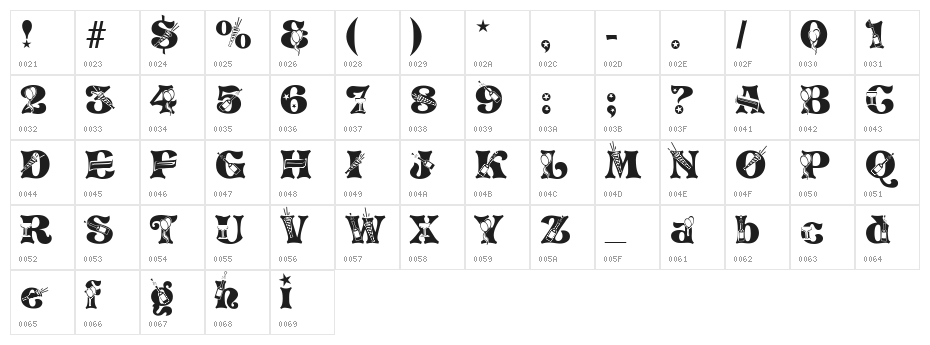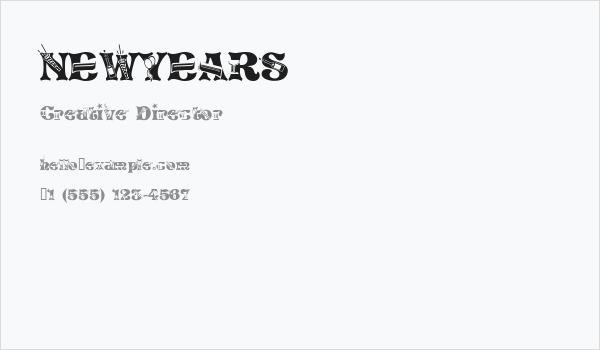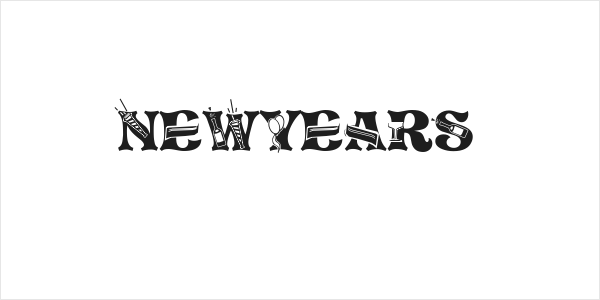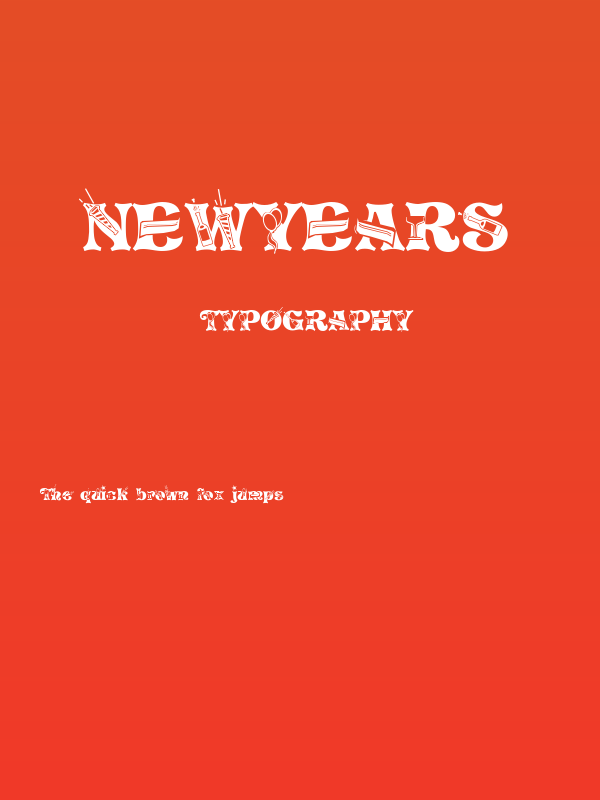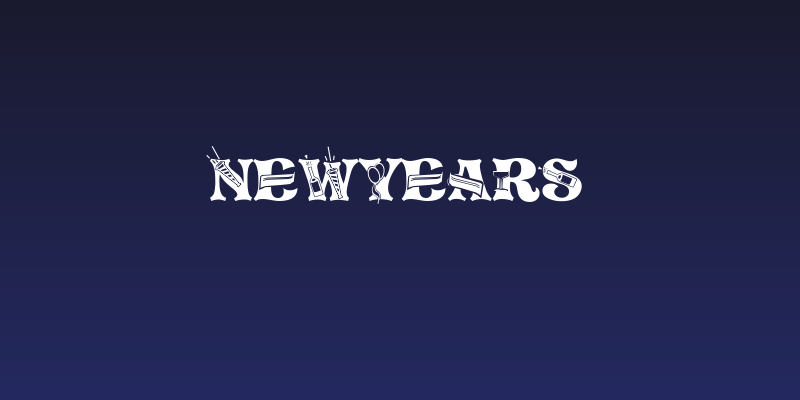
NEWYEARS Font
NEWYEARS Description
This decorative font features a playful and festive design, incorporating elements like champagne bottles, glasses, and stars into the letterforms. Each character is uniquely styled, with embellishments that suggest celebration and joy. The uppercase and lowercase letters maintain a consistent theme, with bold, intricate details that make each letter stand out. The numbers and special characters also follow this celebratory motif, making the font ideal for festive occasions. The overall design is eye-catching and perfect for capturing attention.
| Proposed Projects | Ideal for New Year's Eve invitations, party flyers, festive banners, and celebratory event branding. |